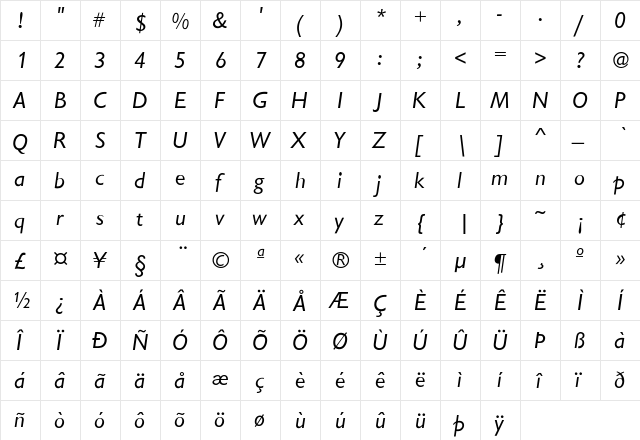
GarrisonSans-RegItalic Regular Font Preview
GarrisonSans-RegItalic Regular
Design Context for GarrisonSans-RegItalic Typeface
GarrisonSans-RegItalic offers clean, dependable letterforms without strong stylistic allegiance, making it a practical choice for designers who need flexibility. The dynamic lean of this cut emphasises speed and emphasis in any layout.